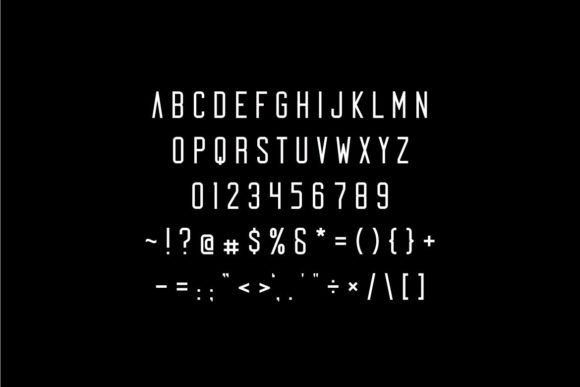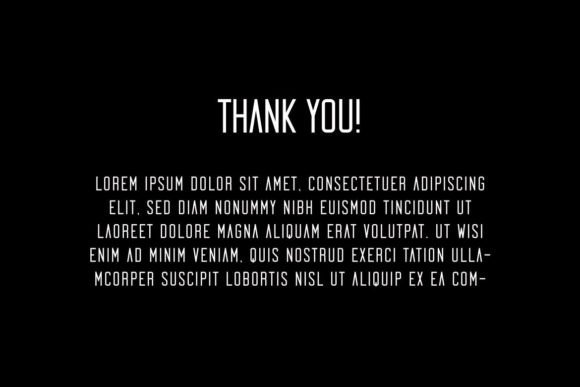
The Perfect Font to Elevate Your Creations
Have you ever been in the middle of a creative project, staring at a blank screen, and suddenly a spark of inspiration hits? That’s exactly what happens when you pair your idea with the right font. For designers, the perfect font can be the difference between a good design and a great one. And that’s where the Dinamica Font comes in – a cool and modern display font that’s sure to elevate any creation.
Whether you’re working on a logo, a poster, or a digital advertisement, the Dinamica Font has the potential to take your design to the next level. Its sleek and modern design makes it versatile enough to be used in a variety of contexts, from fashion to technology. As a valuable addition to any designer’s library, the Dinamica Font is an asset that’s sure to pay off in the long run.
Dinamica Font Key Features
- Font Size: DINAMICA FONT COMES IN 7 DIFFERENT WEIGHTS, RANGING FROM LIGHT TO EXTRA BOLD, PROVIDING ENOUGH VARIETY FOR DIFFERENT DESIGN NEEDS.
- Unique Characteristics: DINAMICA FONT FEATURES A MODERN AND DYNAMIC DESIGN, WITH A UNIQUE BLEND OF GEOMETRIC AND ORGANIC ELEMENTS, MAKING IT STAND OUT FROM OTHER FONTS.
Dinamica Font Review
I recently had the chance to work with the Dinamica font, and I must say it’s a mixed bag. On one hand, there are some great things about it. ✨ The font has a unique, energetic feel that’s perfect for titles and headings. It’s also highly customizable, with a wide range of weights and styles to choose from.
- ✨ Unique, energetic feel that’s perfect for titles and headings
- ✨ Highly customizable with a wide range of weights and styles
- ✨ Works well in digital and print applications
However, there are also some limitations to consider. ⚠️ The font can be quite busy and overwhelming if used extensively, and some of the weights and styles may not be as legible as others. Additionally, the font may not be suitable for body text, as it can be difficult to read in long blocks of text.
Overall, I would say that the Dinamica font is a great choice for designers who want to add a touch of energy and excitement to their designs. However, it’s not a font for every project, and it’s essential to use it judiciously to avoid overwhelming the reader. ⚠️
Getting the Most Out of Dinamica Font
Experiment with different font sizes, styles, and colors to find the perfect look for your project.
Combine Dinamica Font with other fonts to create a unique and eye-catching design.
Dinamica Font is perfect for:
Headlines and titles
Logos and branding
Advertising and marketing materials
Alternatives to Dinamica Font
Montserrat is a sans-serif font that is highly legible and versatile. It’s a great choice for body text, headings, and even display text. Montserrat has a similar modern and clean feel to Dinamica Font, but with a more geometric and structured design.
Ostrich Sans is a modern sans-serif font that is designed to be highly legible and adaptable. It’s a great choice for digital products, branding, and marketing materials. Ostrich Sans has a similar friendly and approachable feel to Dinamica Font, but with a more relaxed and casual design.
Inter is a modern sans-serif font that is designed to be highly legible and adaptable. It’s a great choice for digital products, branding, and marketing materials. Inter has a similar clean and minimalist feel to Dinamica Font, but with a more geometric and structured design.
Public Sans
Public Sans is a modern sans-serif font that is designed to be highly legible and adaptable. It’s a great choice for digital products, branding, and marketing materials. Public Sans has a similar clean and modern feel to Dinamica Font, but with a more open and airy design.